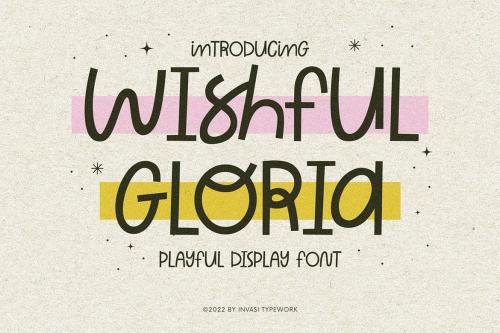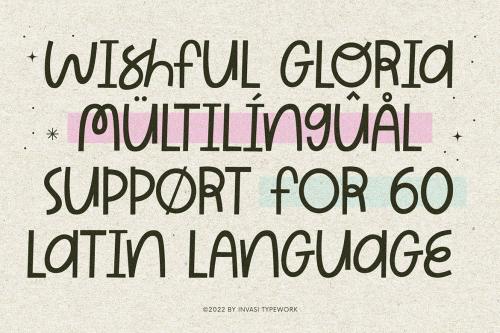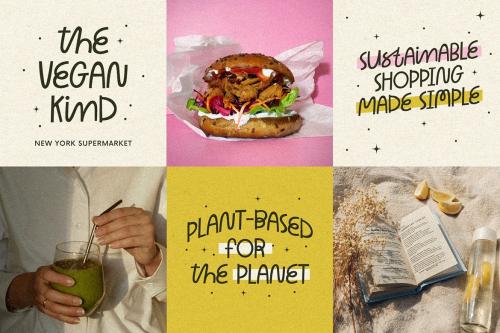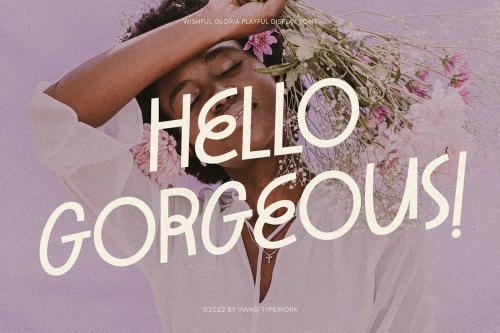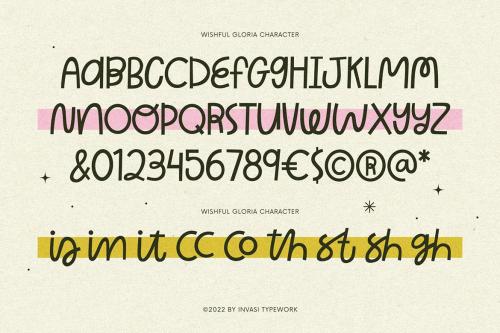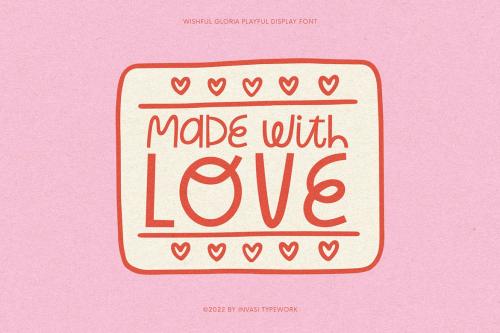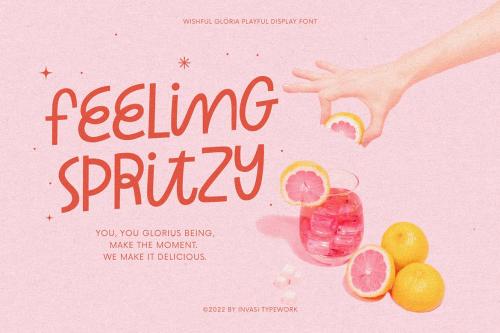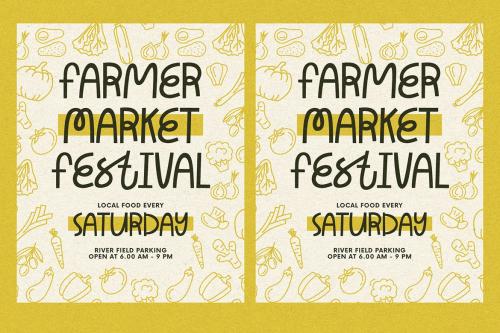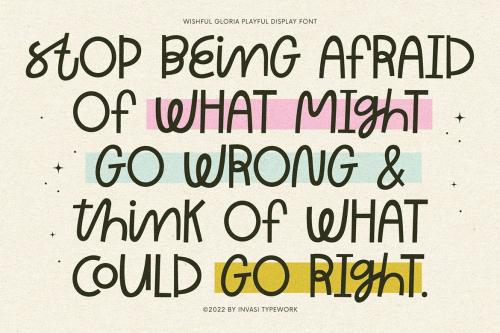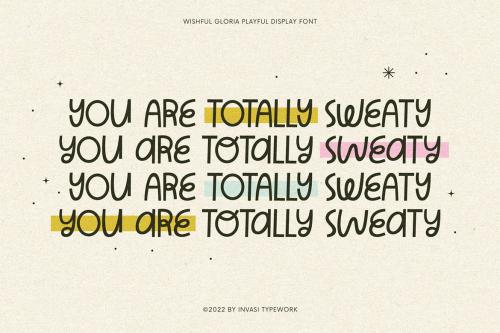
Wishful Gloria - 可爱 curly 字体
Wishful Gloria - Playful Curly Font
With its loop, curly, & playful strokes, Wishful Gloria creates a display font. The font comes in uppercase all caps with OpenType features. Alternate characters and ligatures can be used to give the composition a unique feel. Suitable for display needs such as quotes, branding, logo, poster, cover design, etc
With its loop, curly, & playful strokes, Wishful Gloria creates a display font. The font comes in uppercase all caps with OpenType features. Alternate characters and ligatures can be used to give the composition a unique feel.
Suitable for display needs such as quotes, branding, logo, poster, cover design, etc
- Uppercase
- Numerals & Punctuation
- Alternates & Ligatures
- Multilanguage Supports 60+ Latin-based languages